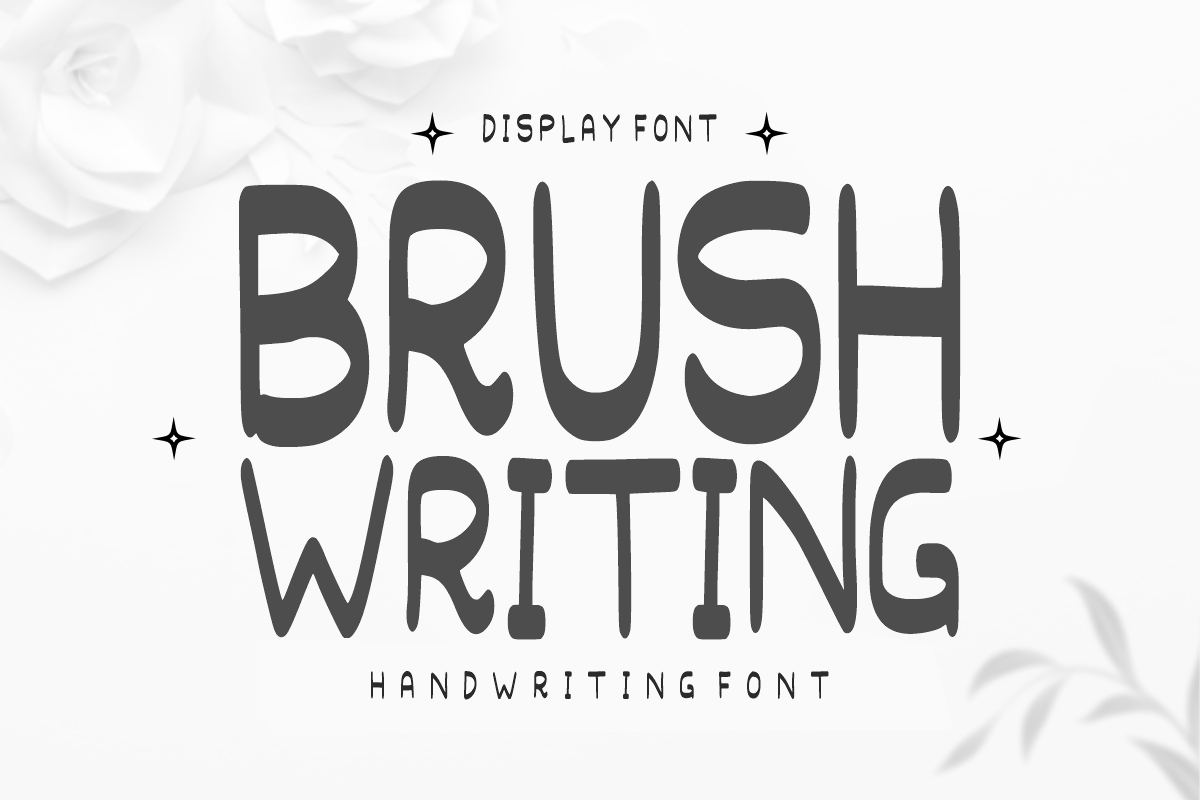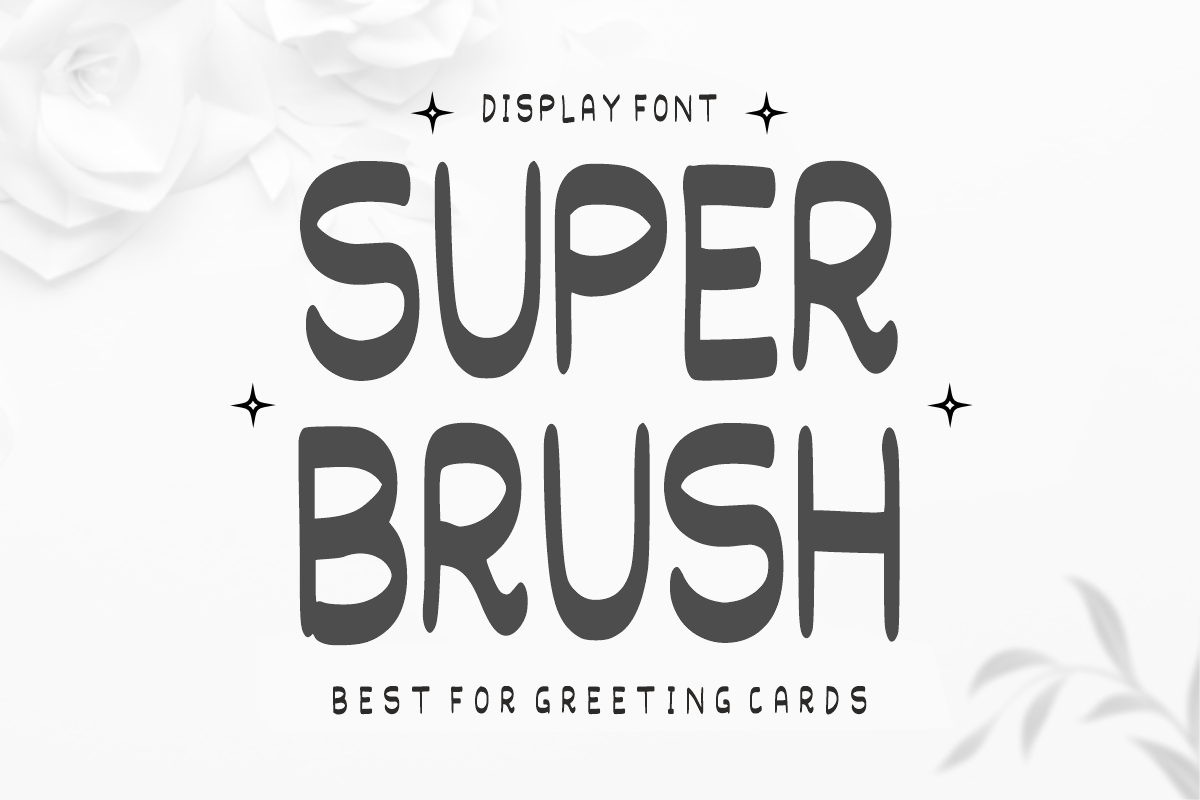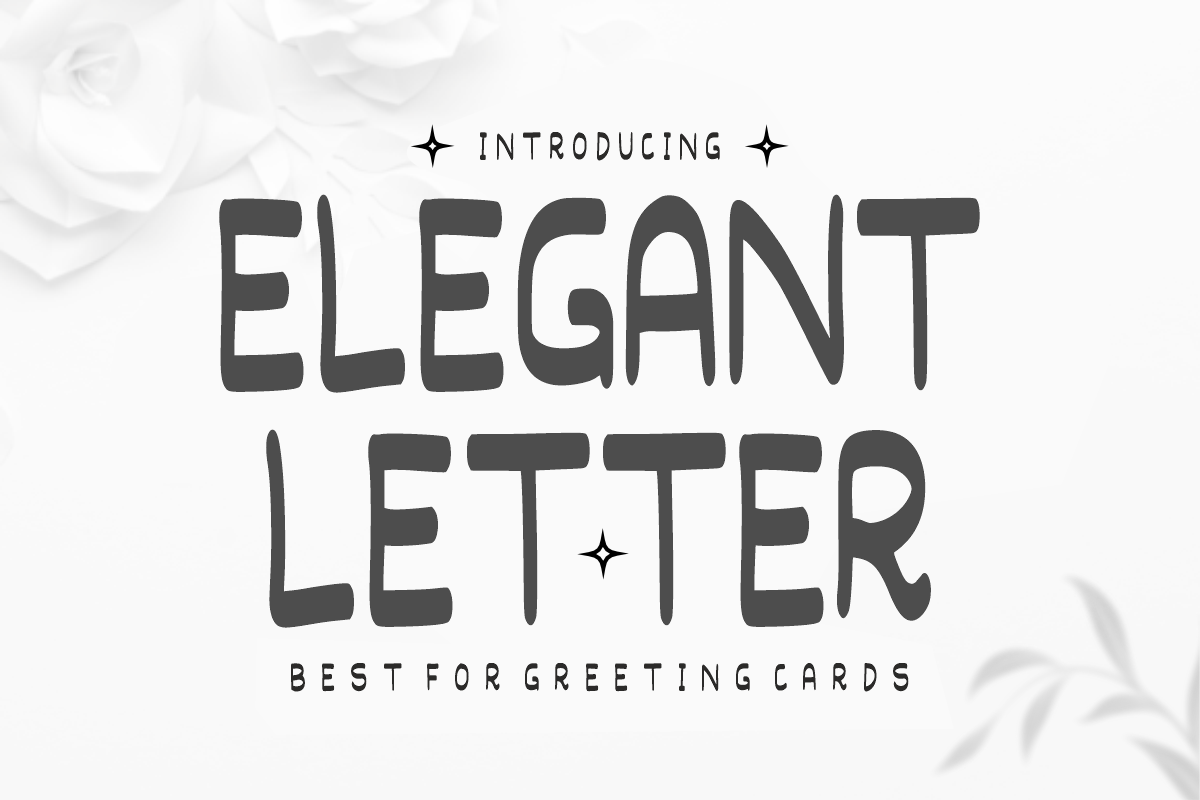
Elegant Letter - Cute Display Font
Elegant Letter - Cute Handwritten Display Font
Elegant Letter is a tall, graceful handwritten display font featuring smooth, rounded letterforms with an organic, handcrafted aesthetic. Specially designed for elegant greeting cards, aesthetic quotes, chic stationery, and cute craft projects, this charming font adds a stylish, warm, and friendly touch to every layout. Every character is cleanly vectorized to guarantee high-resolution prints and smooth, effortless cutting on Cricut and Silhouette machines.
Uppercase Character Set
Numbers & Basic Punctuation